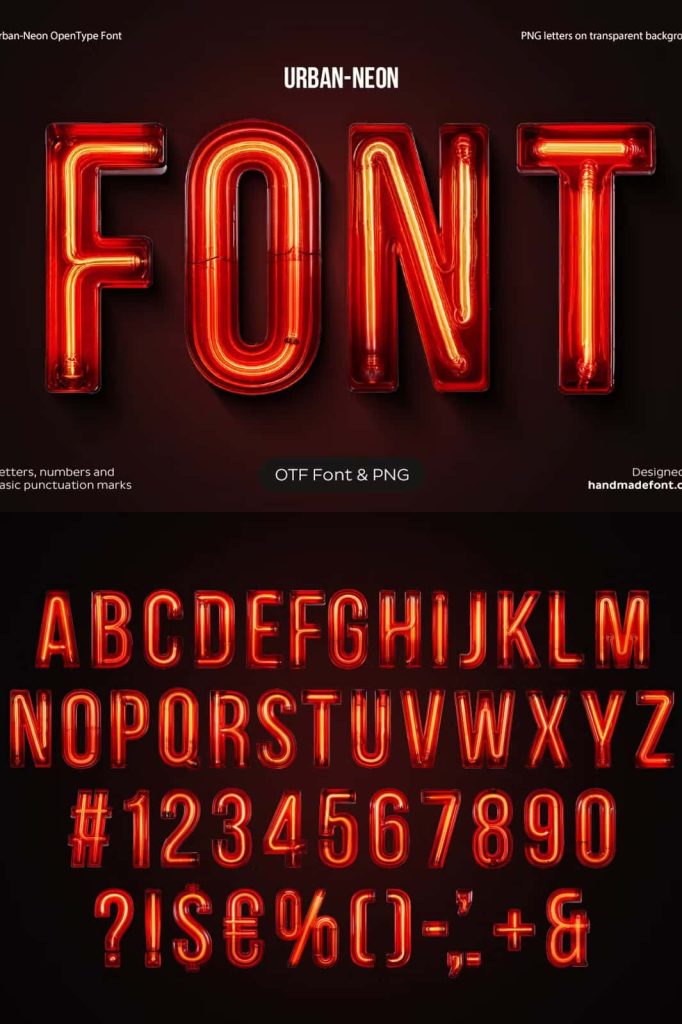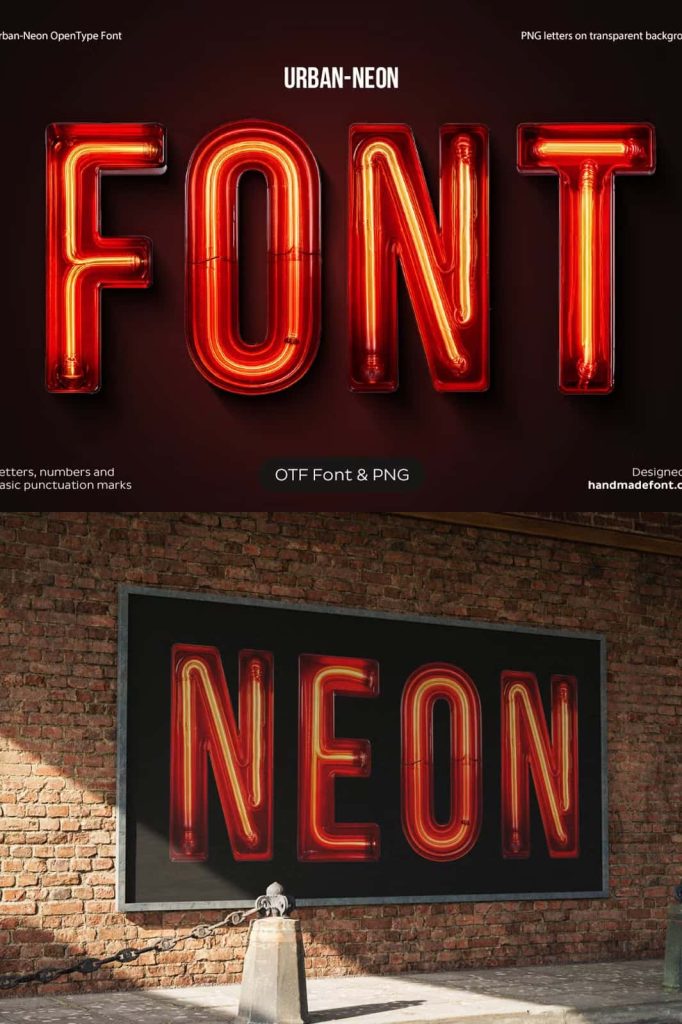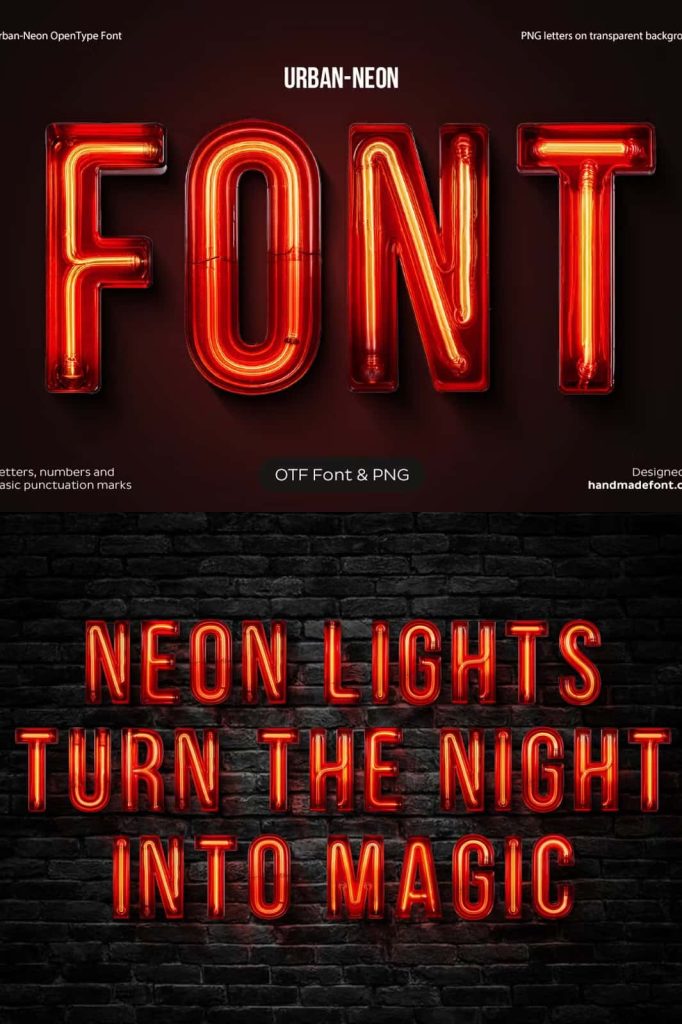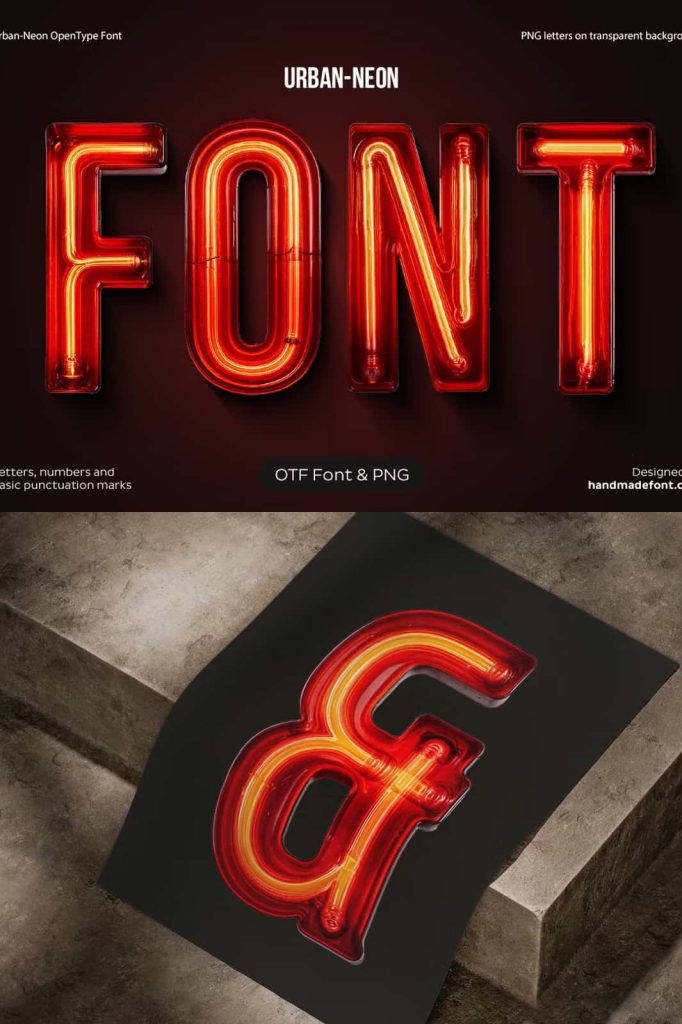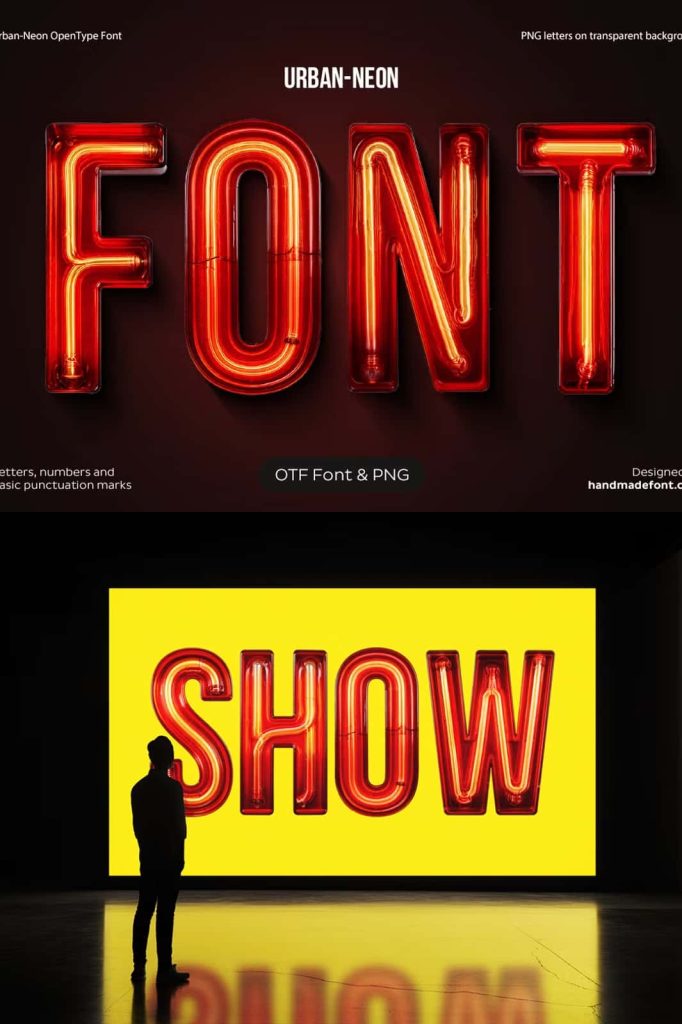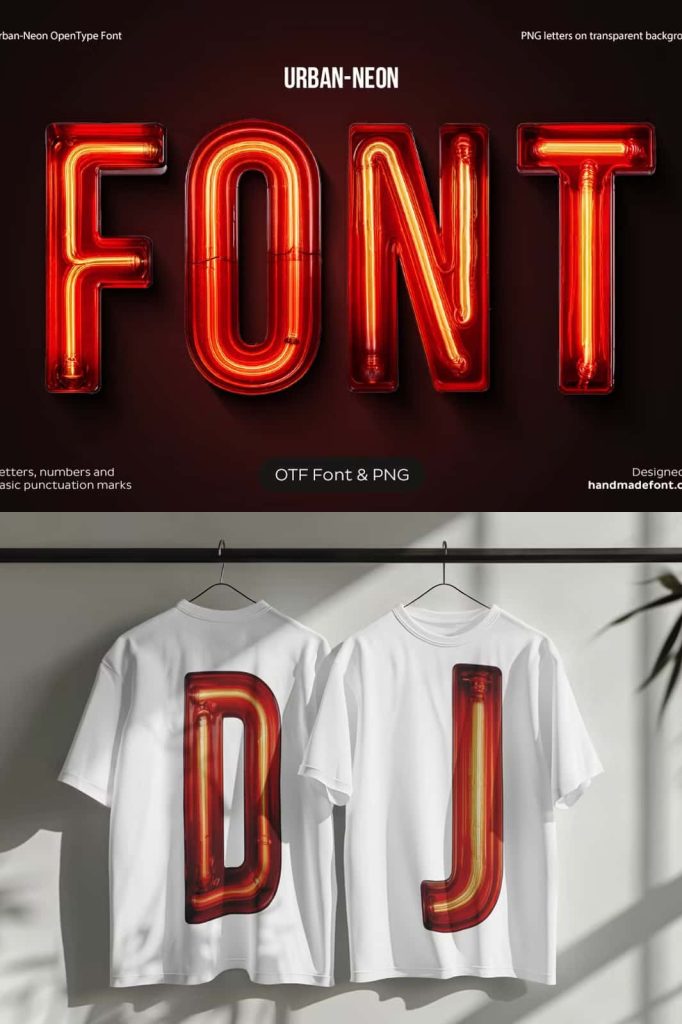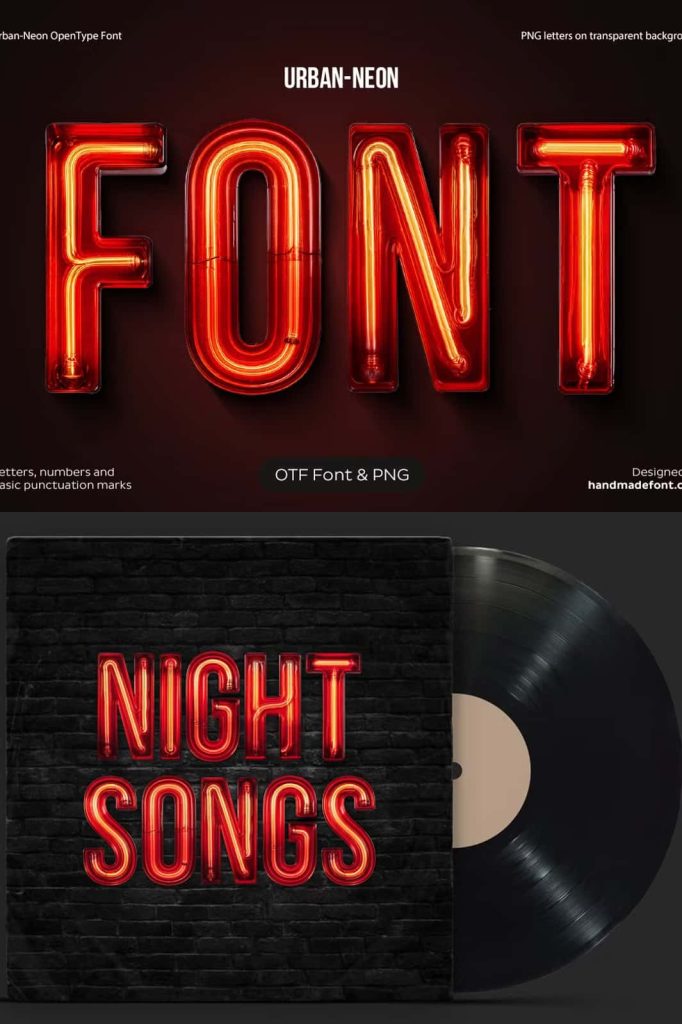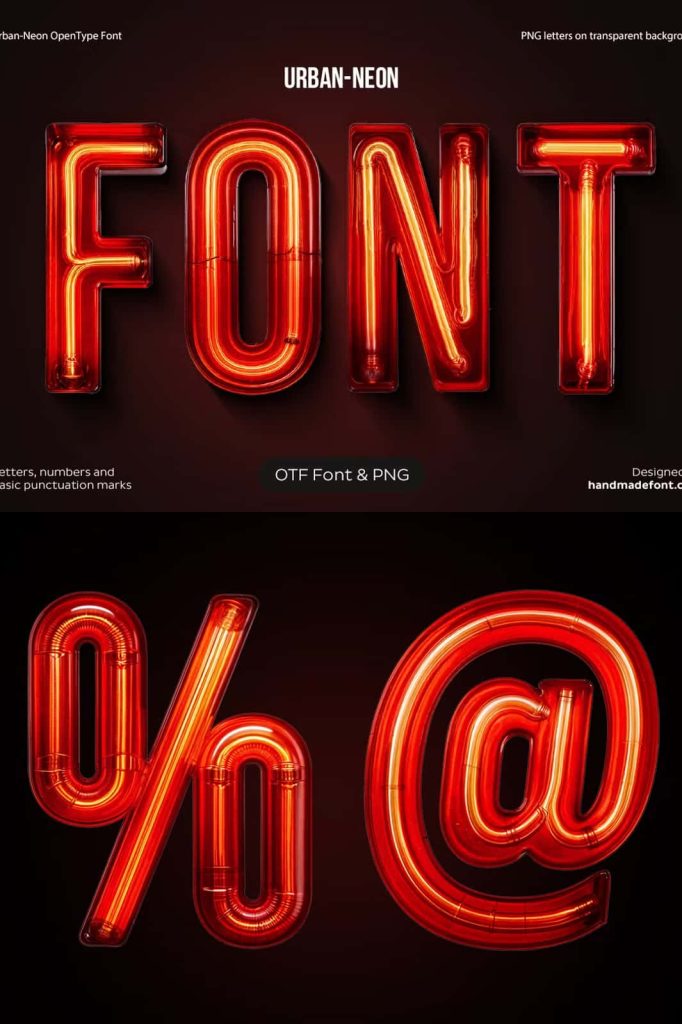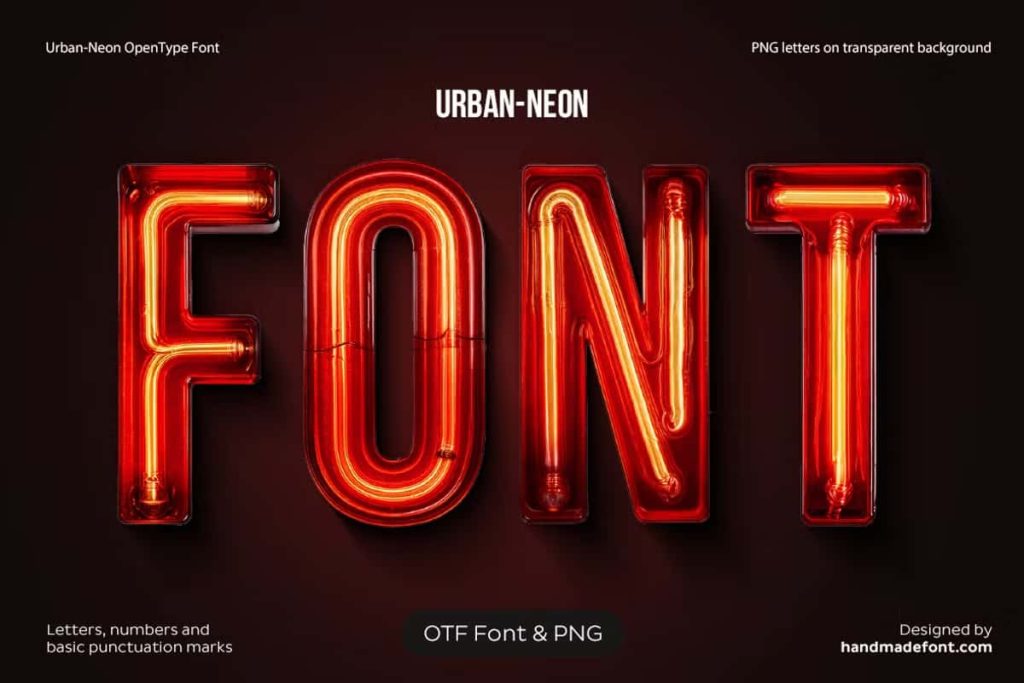
Urban Neon Font
Urban Neon Font: Illuminate Your Designs with Electric Style
Urban Neon Font brings the energy of city nightlife directly into your design work. Inspired by glowing neon signage, this font transforms ordinary text into vibrant visual statements that demand attention. It captures the essence of illuminated streets, late-night diners, and retro signage, making it a powerful choice for designers who want to create bold and unforgettable visuals.
With its striking glow effect and dynamic letterforms, Urban Neon Font turns every word into a centerpiece. It allows you to design with confidence while adding a sense of excitement, movement, and modern flair to your projects.
Capture the Spirit of Neon Lighting
Urban Neon Font recreates the authentic feel of classic neon lights with impressive detail. Each character glows with a vivid red tone, surrounded by warm yellow-orange highlights that mimic real neon tubing. This combination produces a bright, eye-catching effect that feels both nostalgic and contemporary.
The font channels the visual language of vintage signage while adapting it for today’s digital design environment. It offers a seamless blend of retro craftsmanship and modern styling, allowing you to produce designs that feel timeless yet fresh.
Designed to Stand Out
Urban Neon Font does not fade into the background. It commands attention and ensures your message remains visible in any setting. Whether you use it for headlines, titles, or display text, it delivers a strong visual impact that enhances the overall composition.
Designers can rely on its bold structure to maintain clarity while still achieving a dramatic glowing effect. This balance makes it suitable for both artistic experimentation and professional design applications.
Perfect for Nightlife, Retro, and Modern Projects
Urban Neon Font excels in projects that require energy, vibrancy, and personality. It fits naturally into nightlife-themed designs, including club posters, event promotions, and bar branding. Its glowing aesthetic captures the mood of illuminated cityscapes and late-night experiences.
The font also works exceptionally well for retro-inspired designs. It evokes the charm of vintage diners, classic signage, and old-school advertising while maintaining a clean and polished appearance. Designers can use it to create visuals that feel nostalgic without looking outdated.
Enhance Digital and Creative Applications
Urban Neon Font adapts effortlessly to a wide range of digital and print uses. It is ideal for social media graphics, website headers, video thumbnails, and creative branding projects. Its glowing effect translates well across screens, making it especially effective for digital platforms where visibility matters.
In addition, the font supports creative exploration. Designers can combine it with dark backgrounds, gradients, or textured elements to amplify its neon glow. This flexibility allows you to craft unique compositions that capture attention and hold it.
Bring Your Words to Life
Urban Neon Font goes beyond simple typography. It transforms text into a visual experience. Each letter feels alive, as if powered by electric light, giving your designs a sense of movement and energy. This makes it an excellent choice for projects that aim to engage audiences and create memorable impressions.
Whether you want to highlight a brand name, promote an event, or create artistic lettering, this font provides the tools to make your ideas shine. Its distinctive style ensures your message remains both readable and visually striking.
Why Choose Urban Neon Font
Urban Neon Font offers a unique combination of bold design and practical usability. It allows designers to achieve a high-impact look without sacrificing clarity. Its neon-inspired aesthetic adds character and emotion to every project, making it a valuable addition to any creative toolkit.
By choosing Urban Neon Font, you embrace a typeface that celebrates light, color, and creativity. It empowers you to design with confidence while delivering results that feel modern, vibrant, and full of life.
Urban Neon Font stands as a dynamic solution for designers who want to create glowing, attention-grabbing visuals. It captures the excitement of neon lights and transforms it into a versatile design asset. Whether you are working on branding, digital media, or artistic projects, this font helps you produce work that shines with intensity and style.